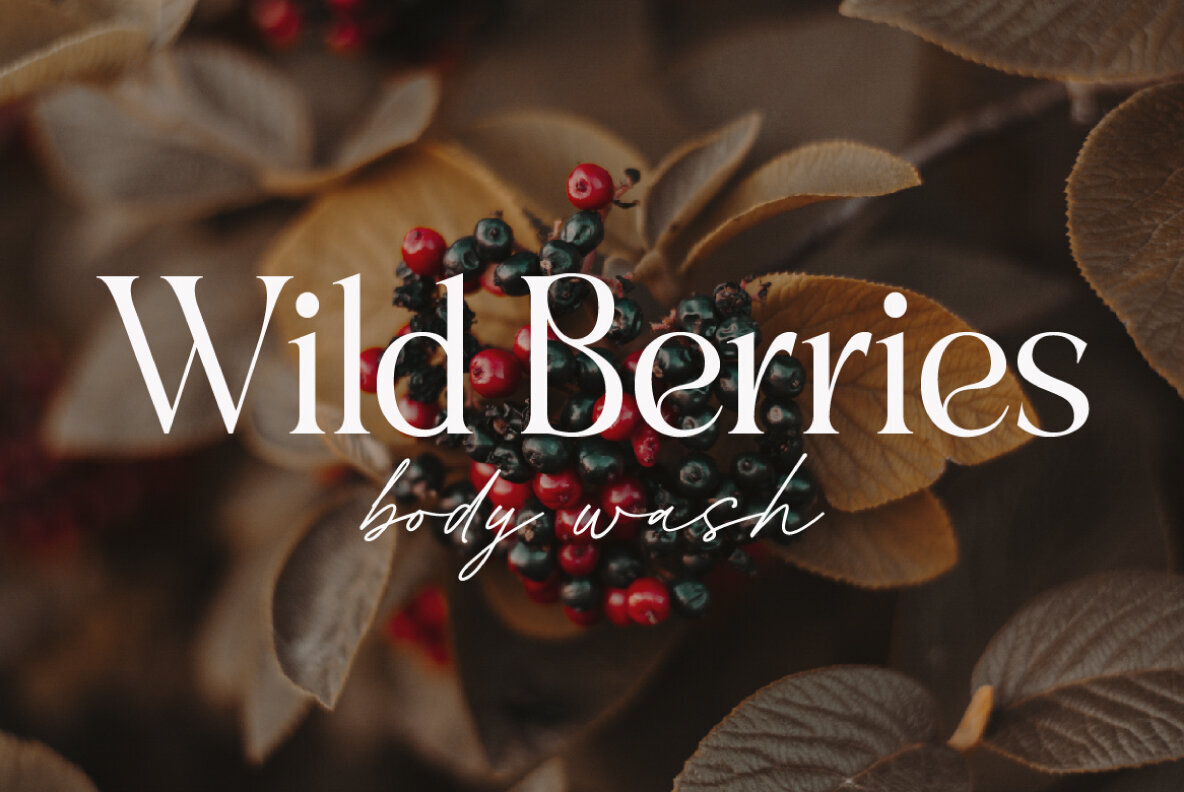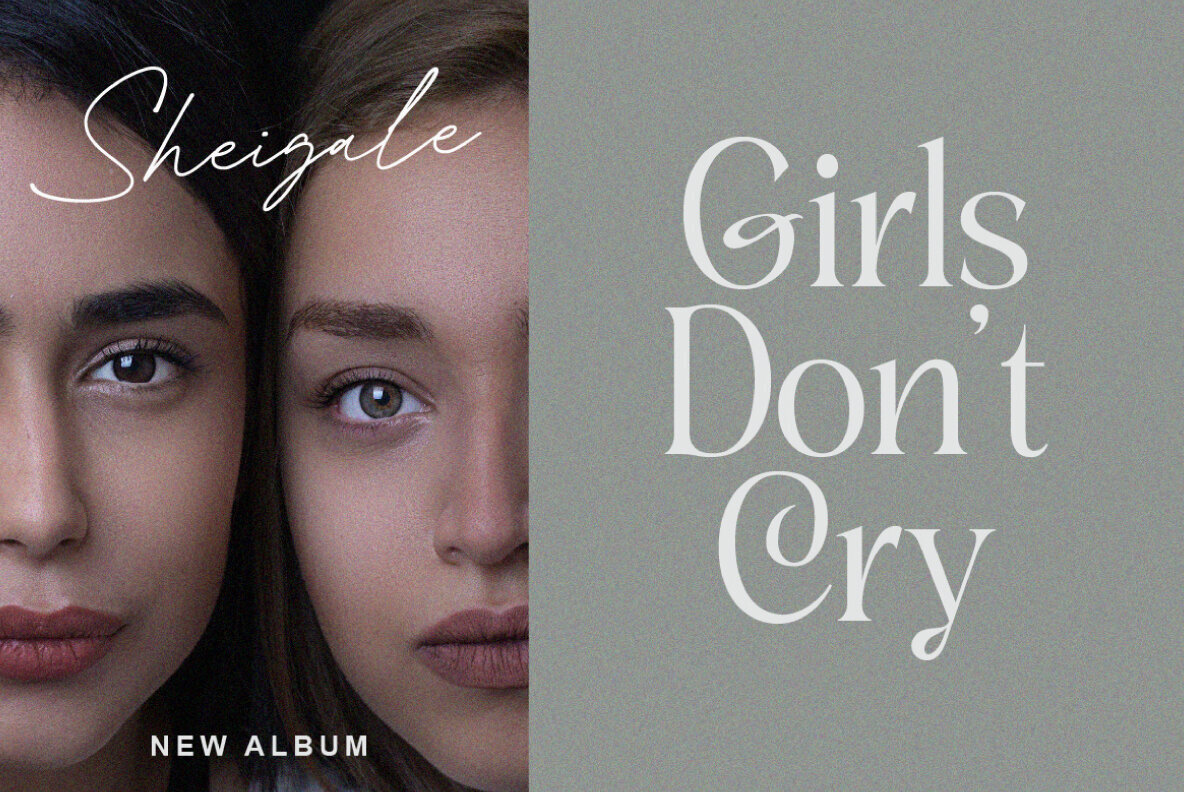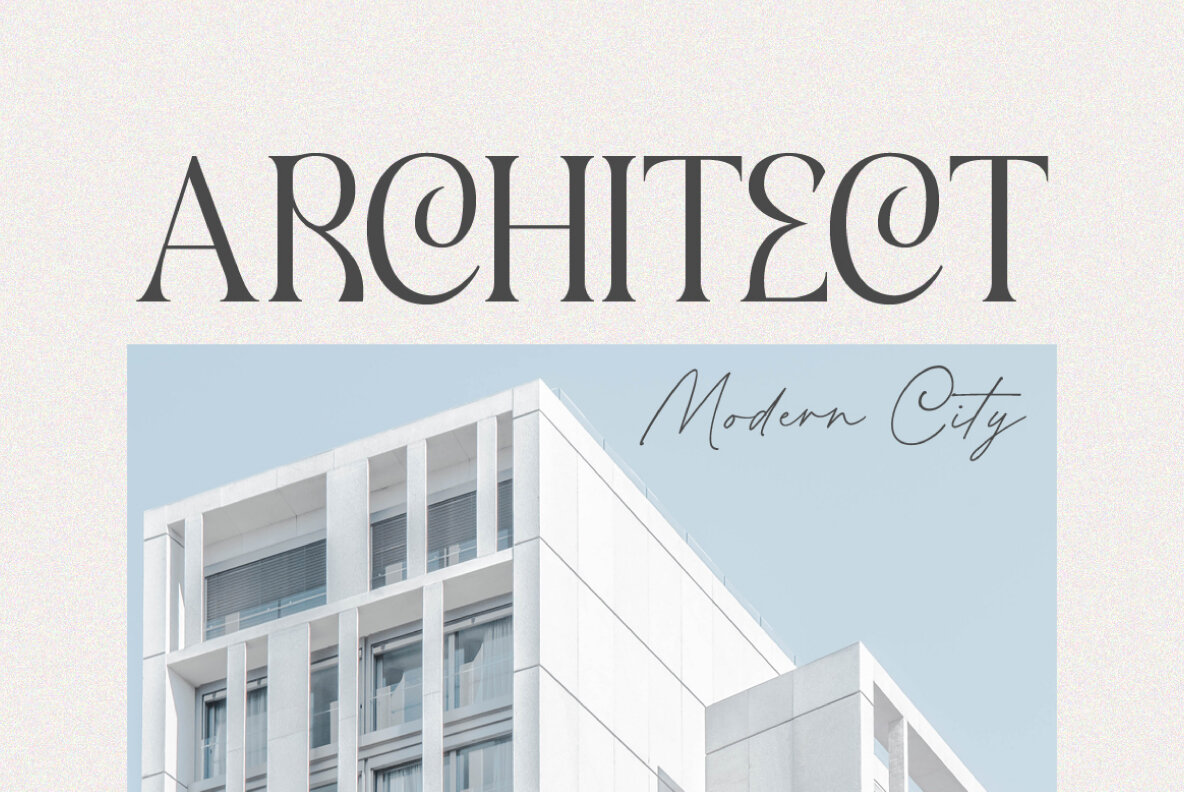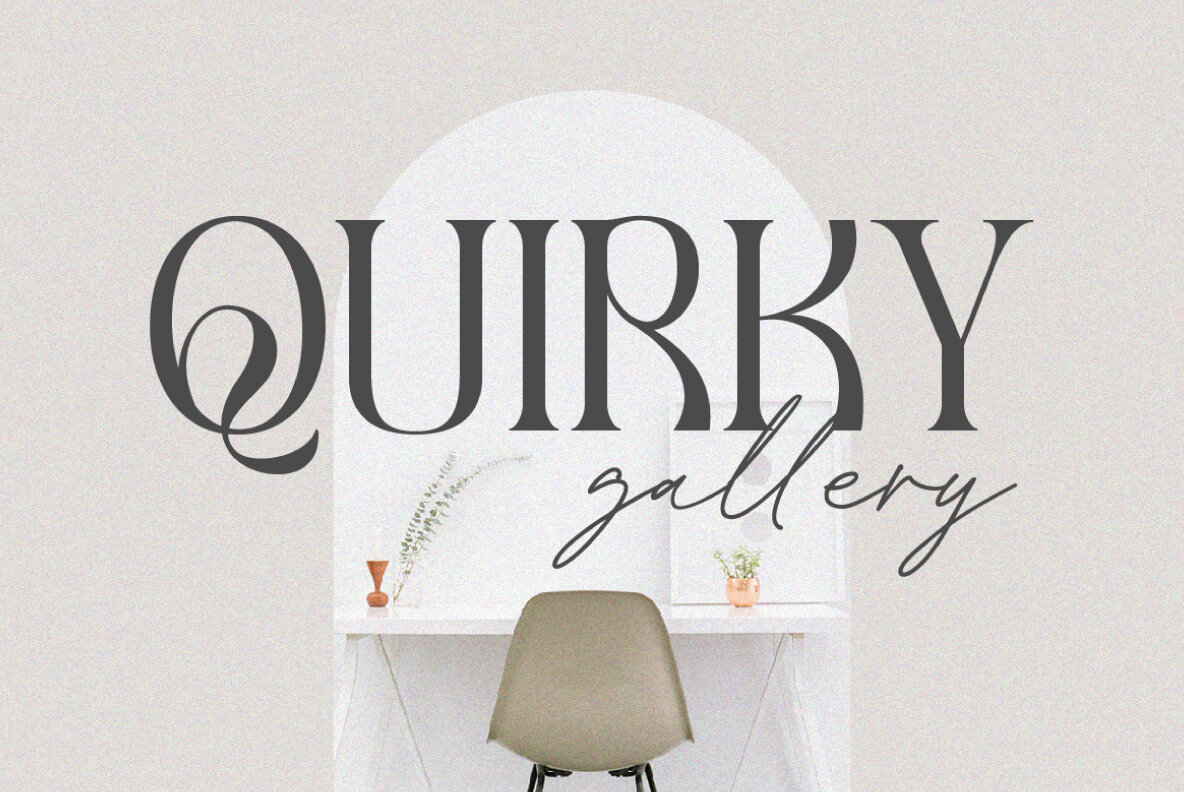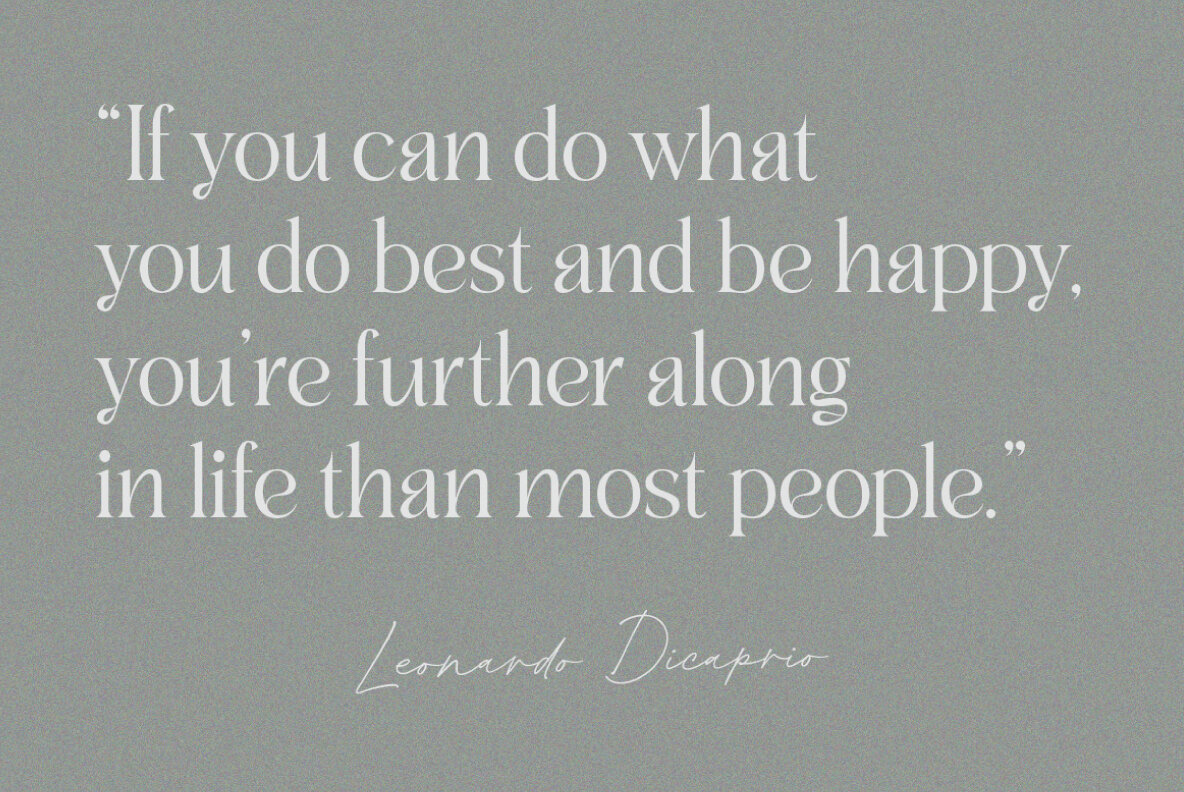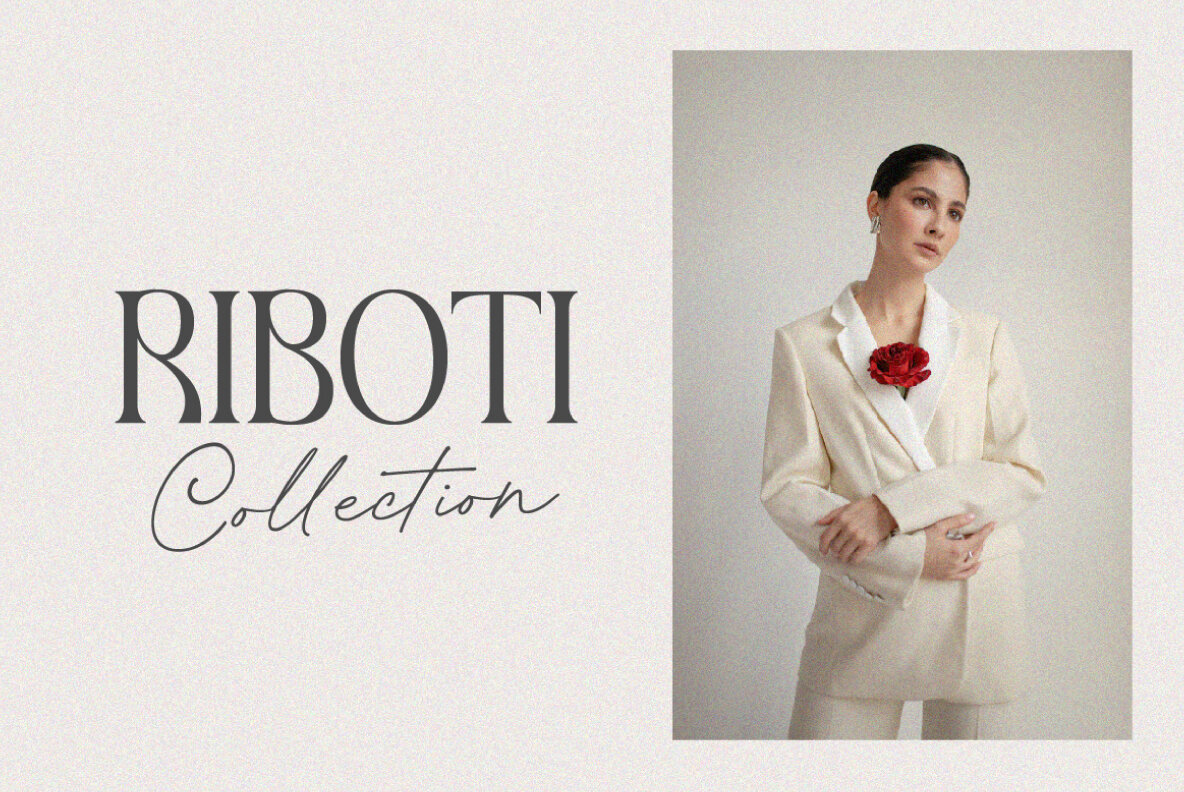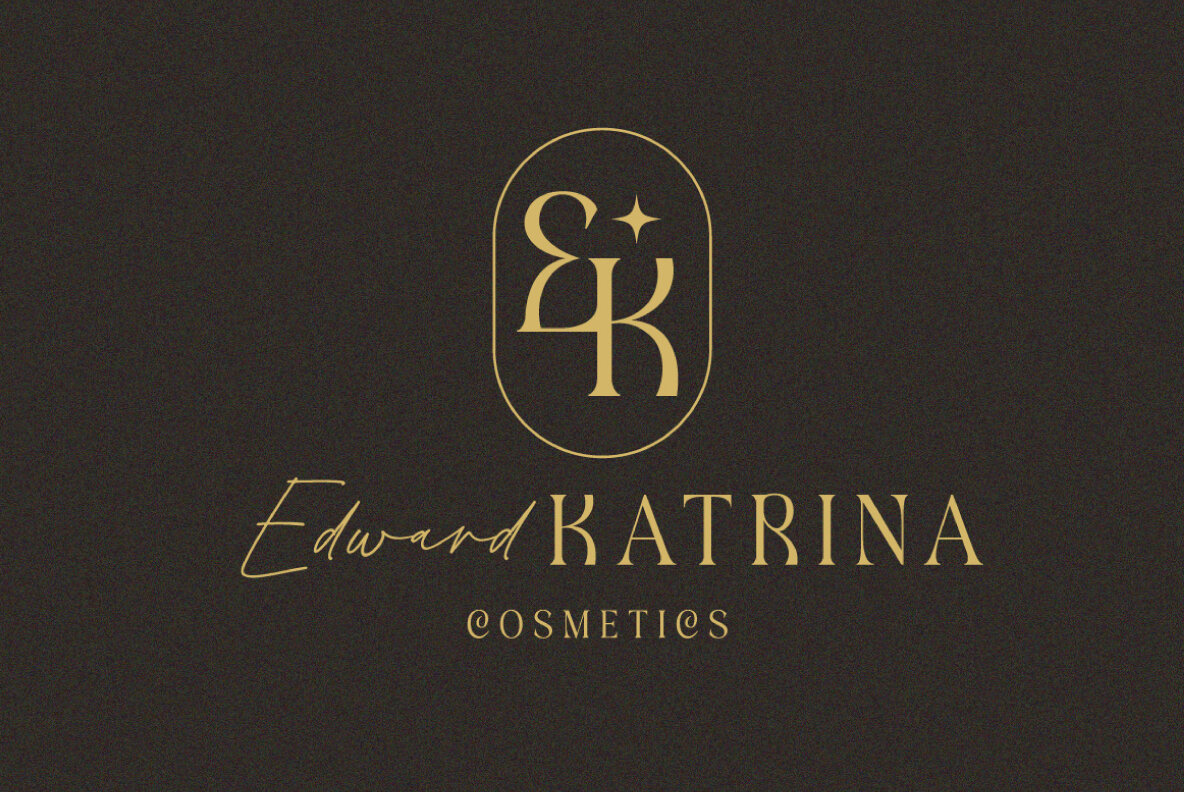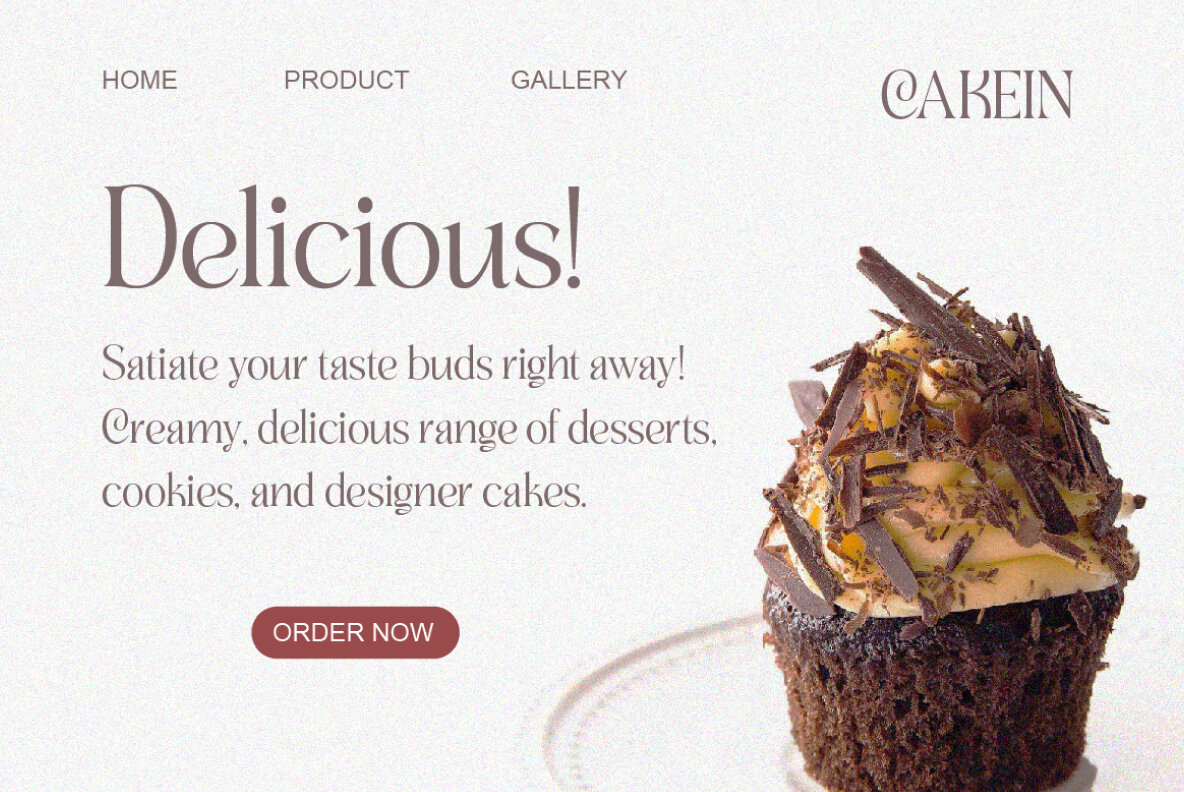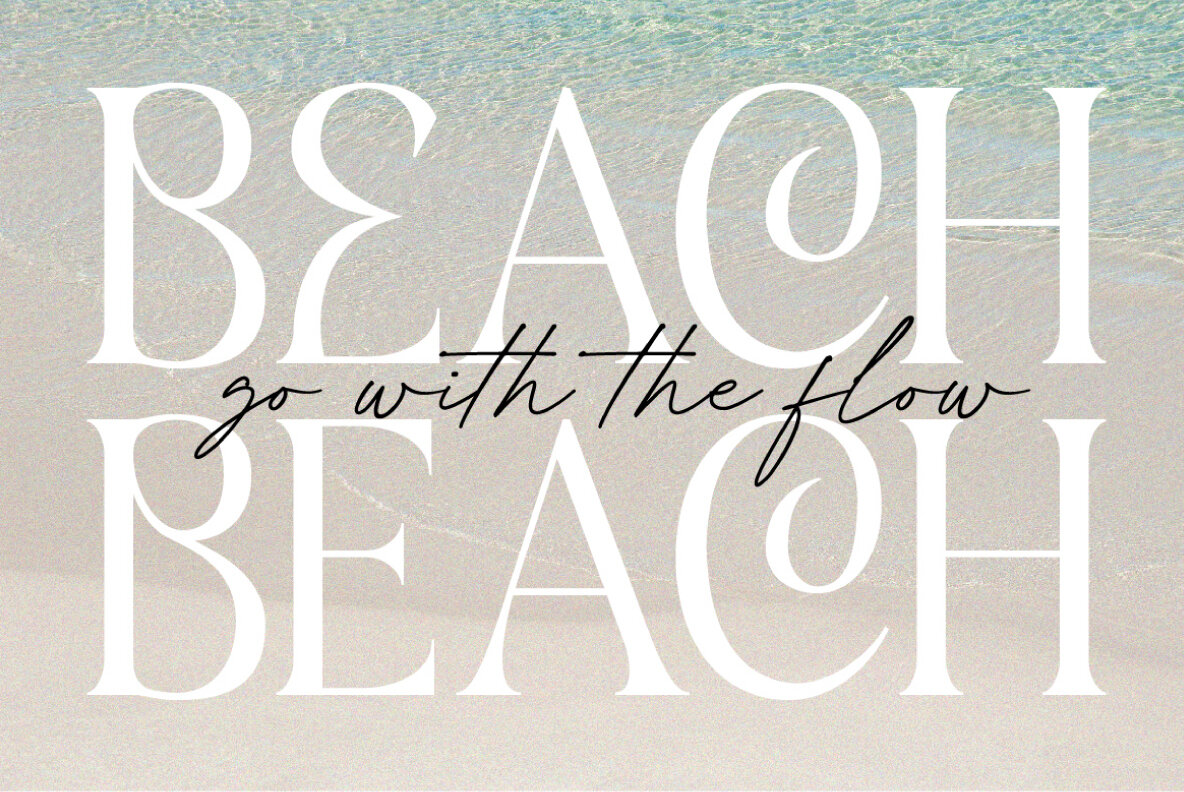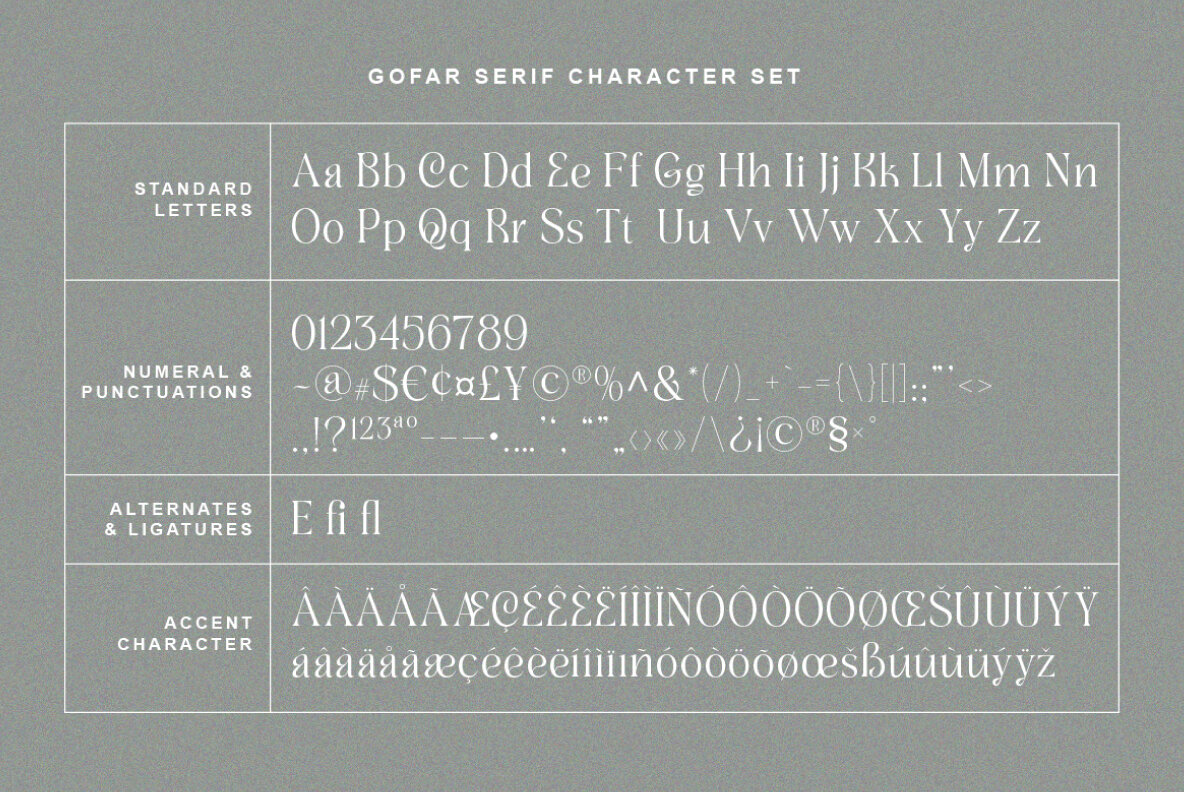
Gofar Font
Gofar by Ef Studio offers a distinctive blend of Serif and Script fonts, making it ideal for a variety of design projects. The Gofar Serif exudes a contemporary and modern feel, featuring unique letterforms that stand out. Complementing the Serif, Gofar Script is adorned with elegant ligatures that enhance its pairing potential. This versatile font duo is perfect for branding, editorial design, books, logos, websites, social media, and any creative endeavor you envision.Gofar: A Versatile Serif and Script Font Duo